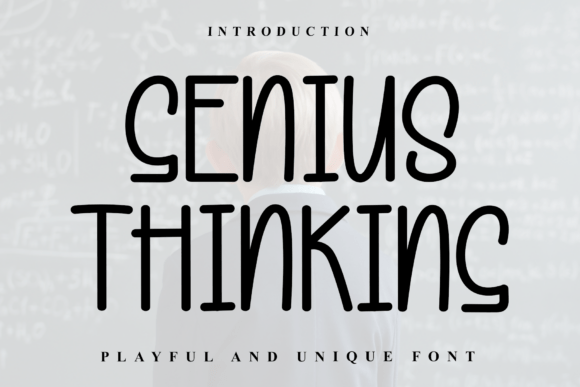
Unlock the Secret to Captivating Design
Have you ever been working on a project, staring at a blank canvas, and suddenly, a spark of creativity hits you? The ideas start flowing, and you can’t help but feel a rush of excitement. That’s the moment when Genius Thinking Font comes to the rescue. This casual display font is designed to bring a fresh and friendly touch to your designs, making it perfect for posters, branding, packaging, and social media graphics.
As a designer, you understand the importance of a font that not only looks great but also conveys your message effectively. That’s where Genius Thinking Font shines, delivering both readability and personality in equal measure. Its clean shapes, soft edges, and well-balanced letterforms make it a versatile choice for any project. Whether you’re working on a personal or commercial project, this font is sure to elevate your design game.
Genius Thinking Font Key Features
- Font Family: The Genius Thinking Font is a unique, custom-designed font family with multiple styles, including Regular, Italic, Bold, and Bold Italic.
- Size: The font family consists of 600+ glyphs, covering a wide range of languages, including Latin, Cyrillic, and Greek alphabets.
- Unique Characteristics: The font features a distinctive, modern design with clean lines, geometric shapes, and a touch of elegance, making it perfect for creative projects and branding materials.
Genius Thinking Font Review
Overall, I think the Genius Thinking Font has a lot going for it. ✨ The unique blend of futuristic and elegant elements makes it a standout choice for designers looking to add some visual interest to their projects.
- Customizability: Genius Thinking Font offers a wide range of font weights and styles, making it easy to find the perfect combination for your design.
- Legibility: Despite its futuristic feel, the font is surprisingly easy to read, even at smaller sizes.
- Creativity: The font’s unique shapes and letterforms make it perfect for designers who want to push the boundaries of traditional typography.
While the Genius Thinking Font has many strengths, it also has a few areas where it falls short. ⚠️ One major limitation is its lack of support for certain languages, which can be a problem for designers who need to work with non-English clients.
- Limited language support: Currently, the font only supports Latin-based languages, which can be a limitation for designers working with clients from non-English speaking countries.
Overall, I think the Genius Thinking Font is a solid choice for designers who want to add some creativity and flair to their work. While it has some limitations, its unique style and customizability make it a great option for designers who want to stand out from the crowd.
For best results, use the font in headings and titles to create a bold and modern look.
For best results, use the font in bold and italic styles to add emphasis to your text.
For best results, use the font in headings and titles to create a clear and concise presentation.
The Genius Thinking Font is ideal for:
Creating bold and modern headings and titles.
Adding emphasis to text with bold and italic styles.
Creating a professional and sophisticated look in presentations and documents.